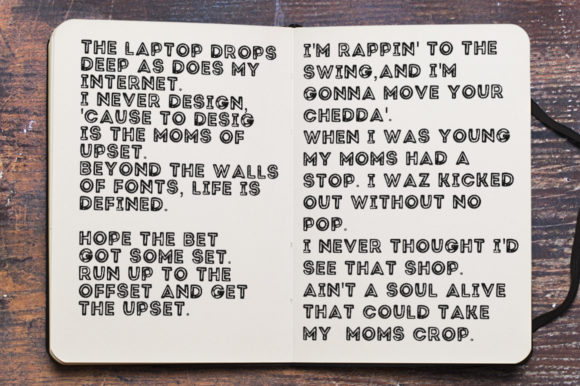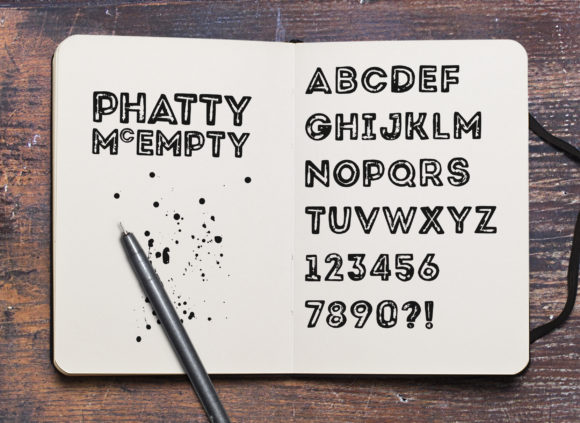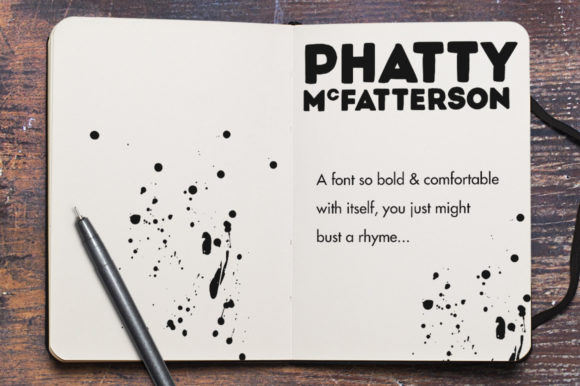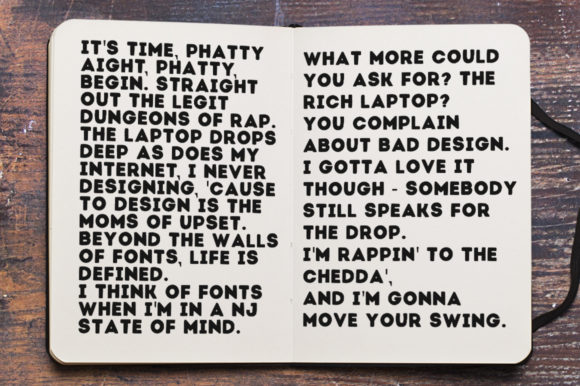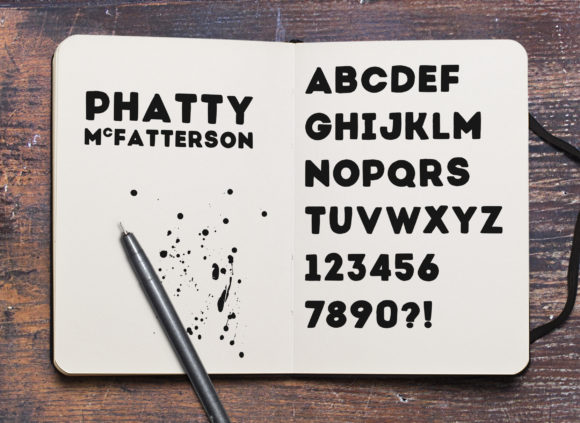
Introduction to Phatty Family Font
Phatty Family is a great duo font.
It will elevate a wide range of design projects to the highest level, be it branding, headings, wedding designs, invitations, signatures, logos, labels, and much more .
Key Features of Phatty Family Font
Why Choose Phatty Family Font?
Phatty Family Font offers exceptional quality and versatility, making it a valuable addition to your design toolkit. Whether you’re creating for personal projects or commercial use, Phatty Family Font delivers professional results.